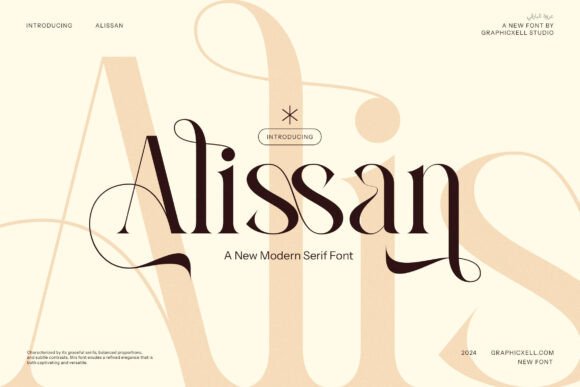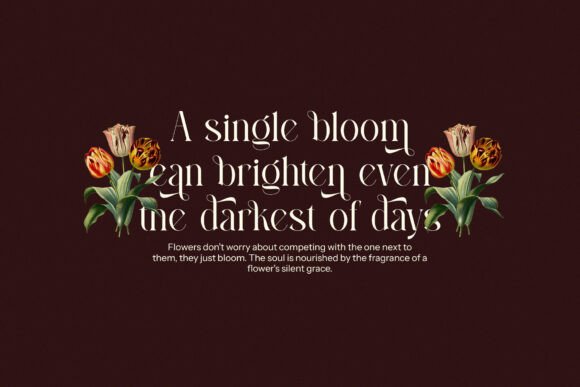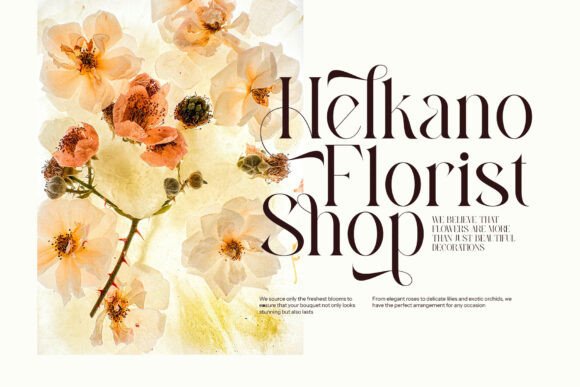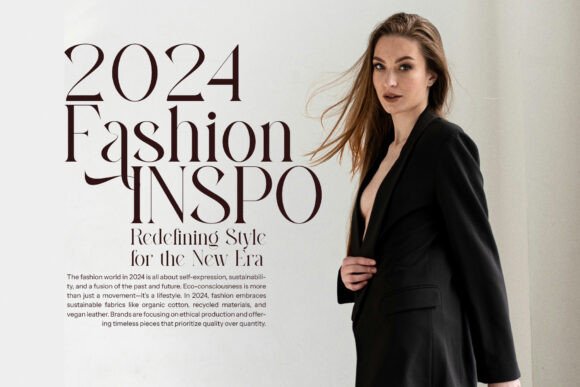
Alissan Font
About the Alissan Font
The wait is over! The incredible Alissan Font is now available for your design toolkit. Alissan is a sophisticated ligature serif designed with great care to ensure premium quality and a luxurious feel. The unique ligatures set this typeface apart from regular serif fonts, making it stand out. It is ideal for logos, headlines, titles, and various formal uses such as invitations, labels, magazines, books, greeting or wedding cards, packaging, fashion, makeup, stationery, novels, or any type of advertising purpose.
Alissan Font Usage Examples
Alissan Font Example